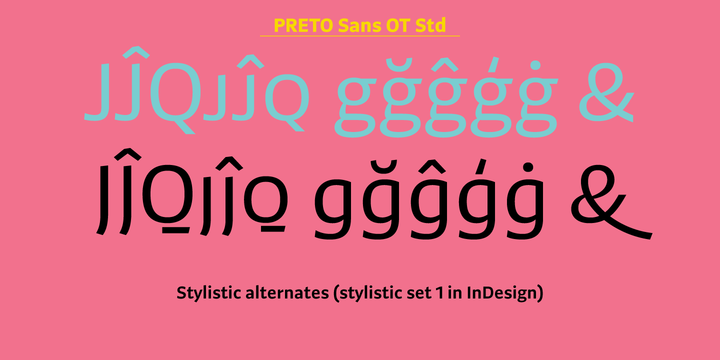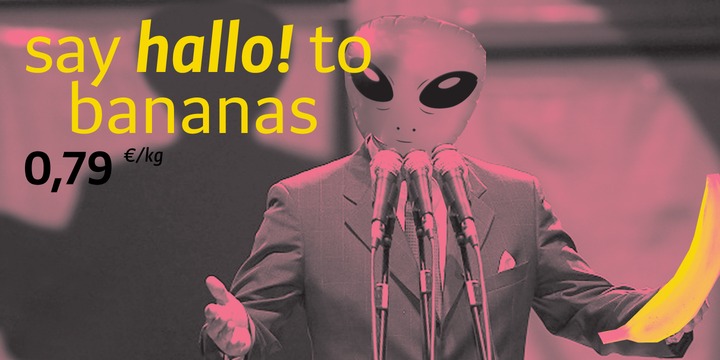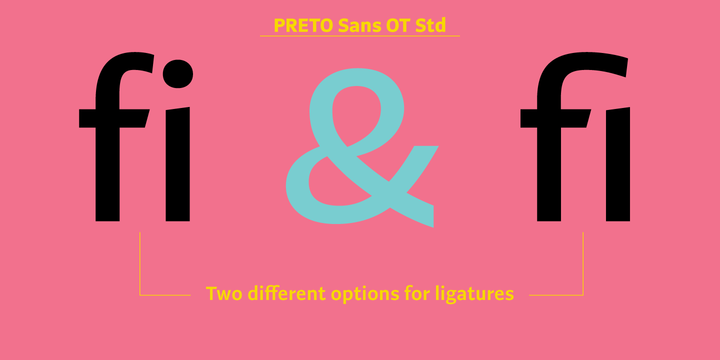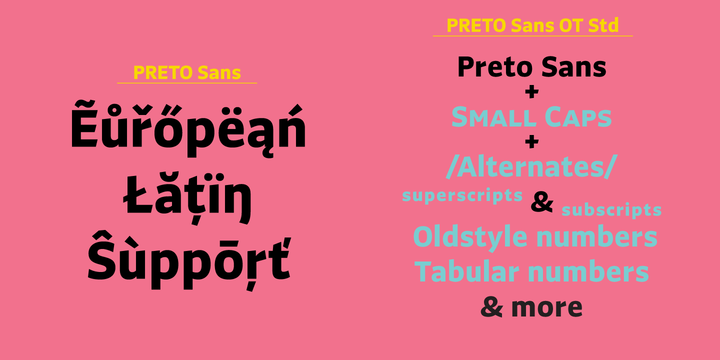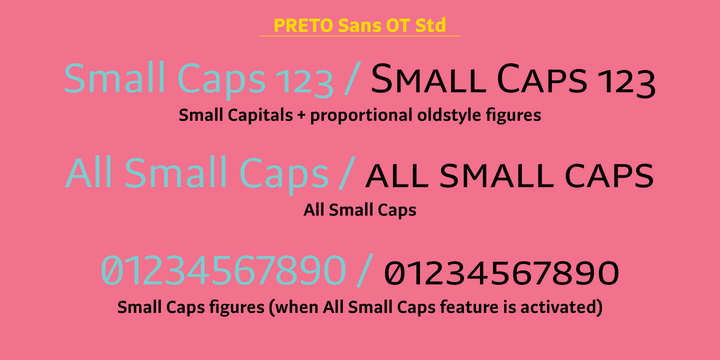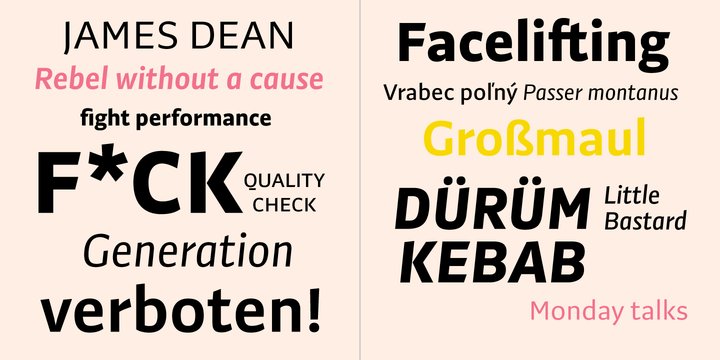
Preto Sans OT Std Font Family
Preto is an extensive type family, which explores the function of serifs on readability and legibility. Preto consist of three subfamilies: Sans, Semi and Serif. Preto is designed for multilingual typesetting.
All of the subfamilies have equal gray value but different texture which can be use to differentiate languages. Preto subfamilies have two text weights and two bold styles (Regular –> Bold, Medium –> Black). Every weight has a companion Italic style as well.
Preto Sans OT Std Regular
Preto Sans OT Std Italic
Preto Sans OT Std Medium
Preto Sans OT Std Medium Italic
Preto Sans OT Std Bold
Preto Sans OT Std Bold Italic
Preto Sans OT Std Black
Preto Sans OT Std Black Italic